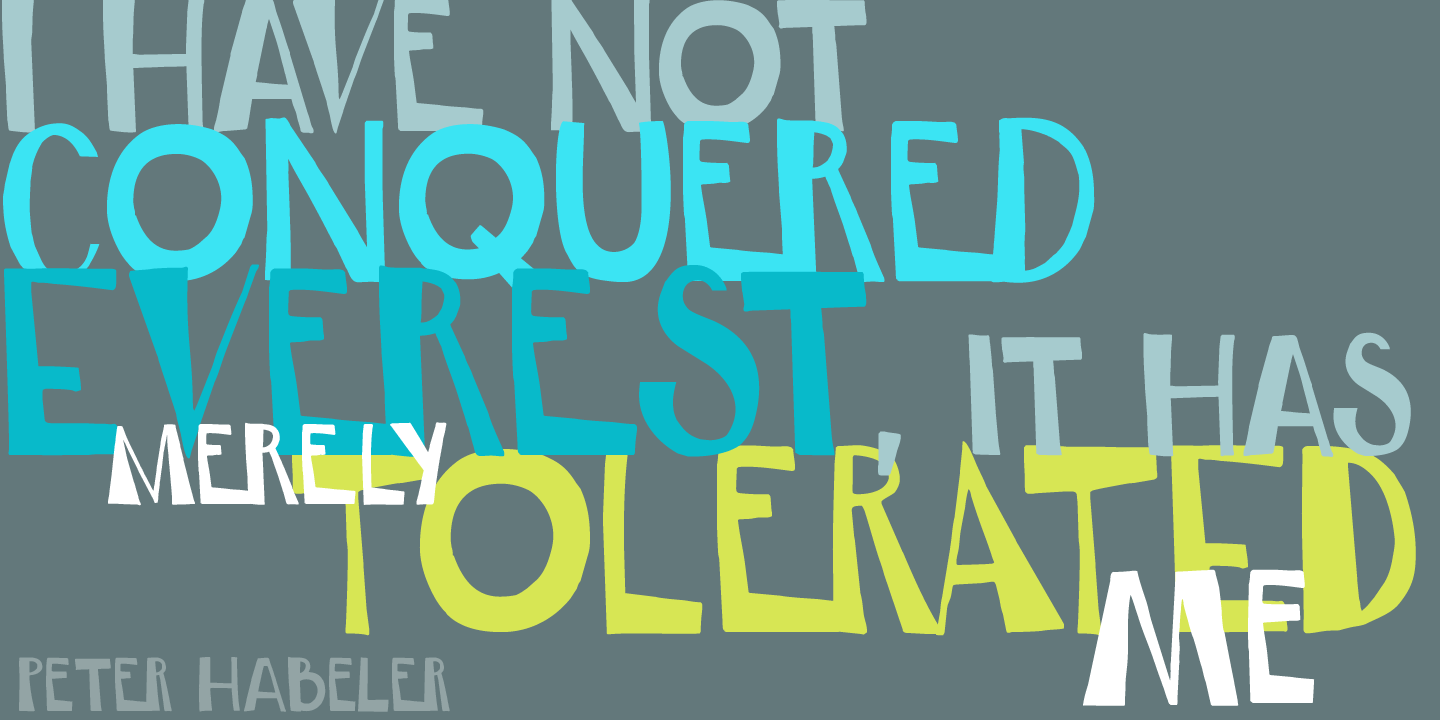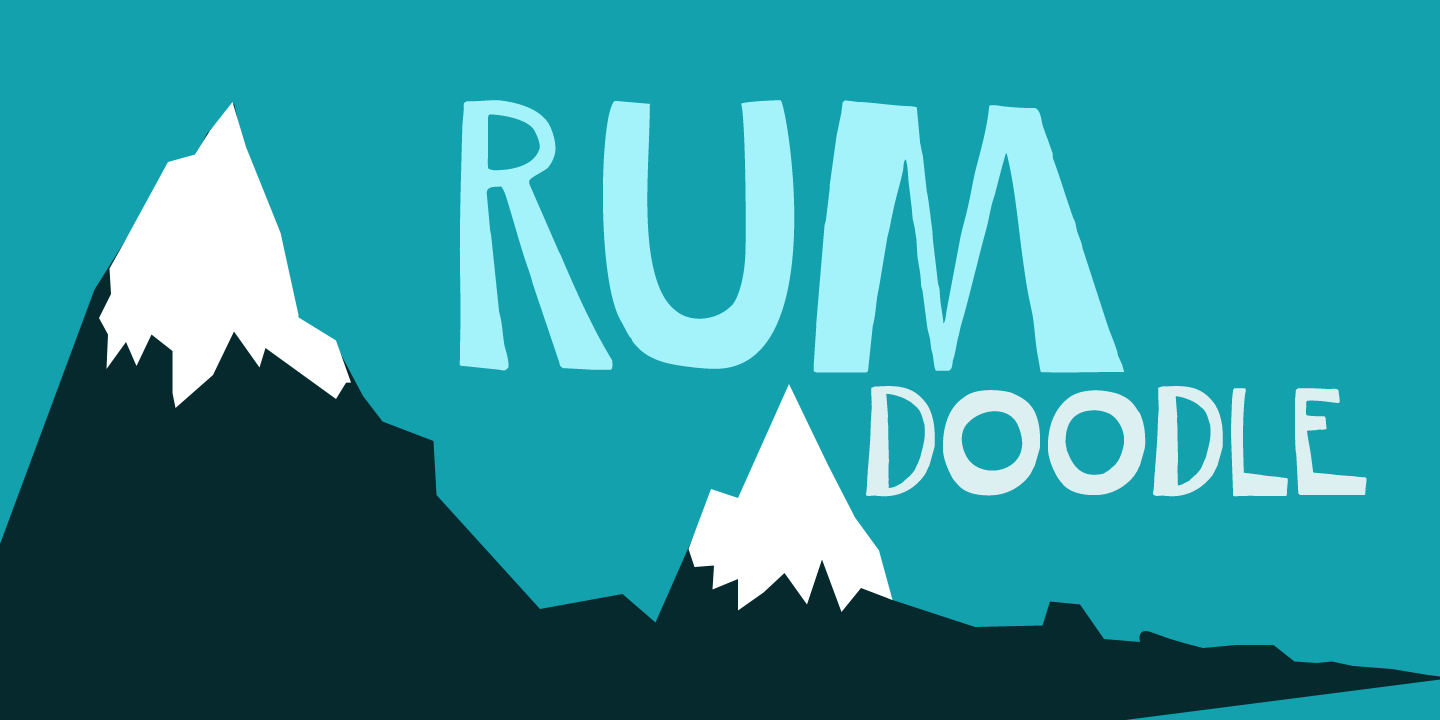
Rum Doodle
About Rum Doodle
The Ascent of Rum Doodle is short story written in 1956 by W. E. Bowman. The story is a parody of the many non-fictional mountaineering chronicles and tells the adventures of a group of incompetent climbers, trying to conquer the highest mountain in the…